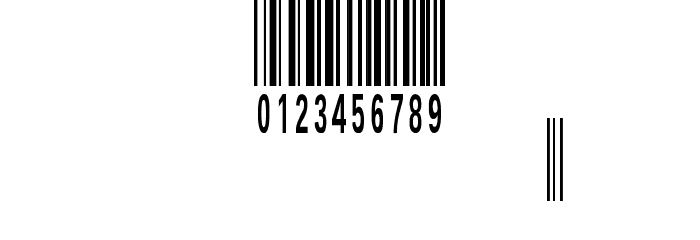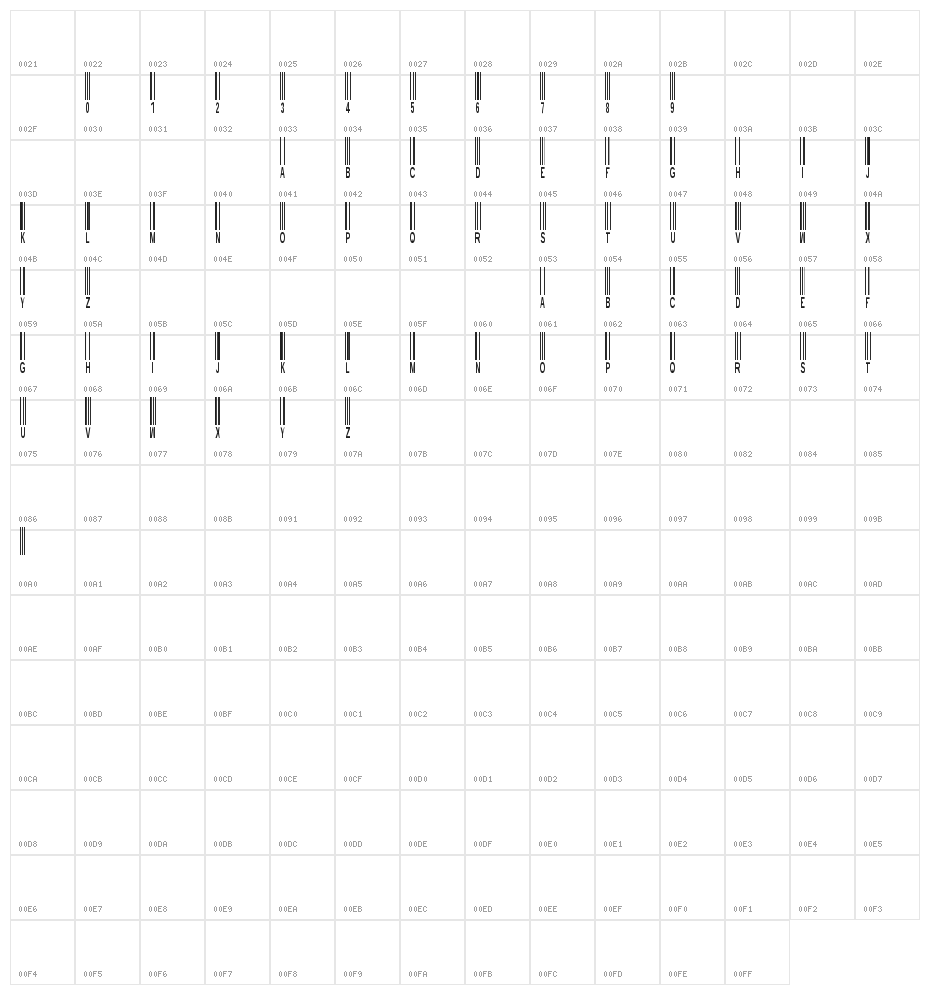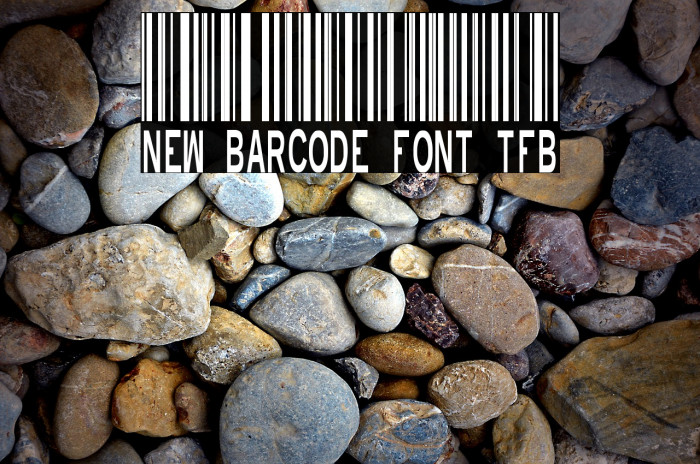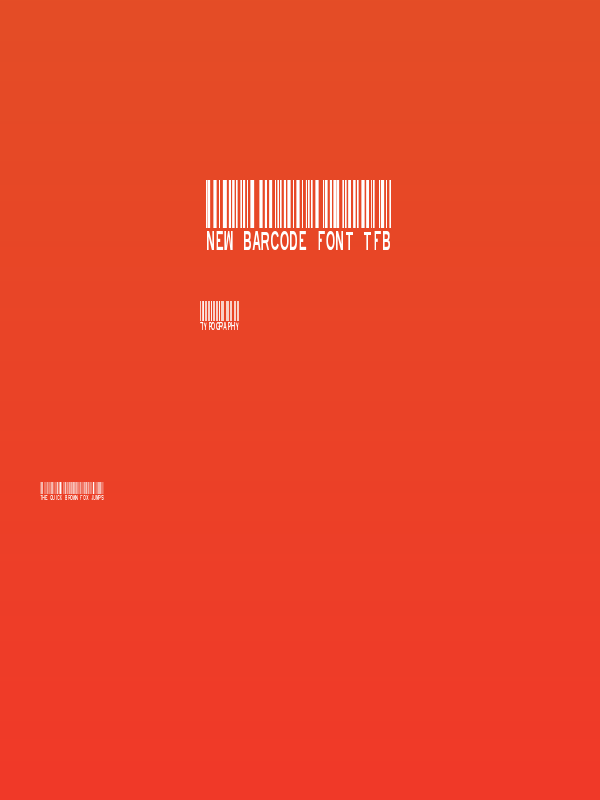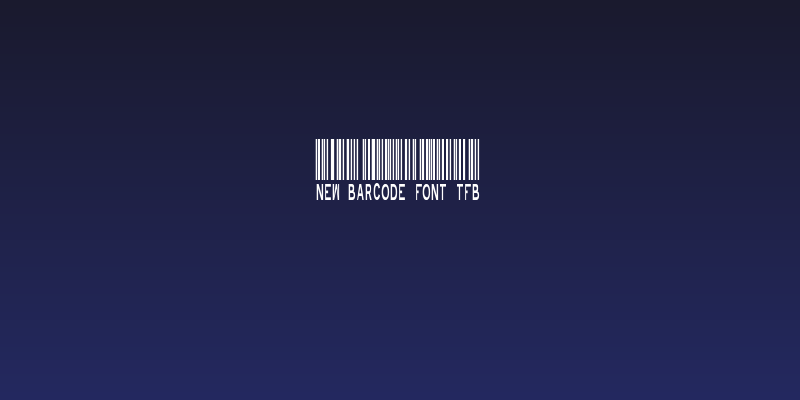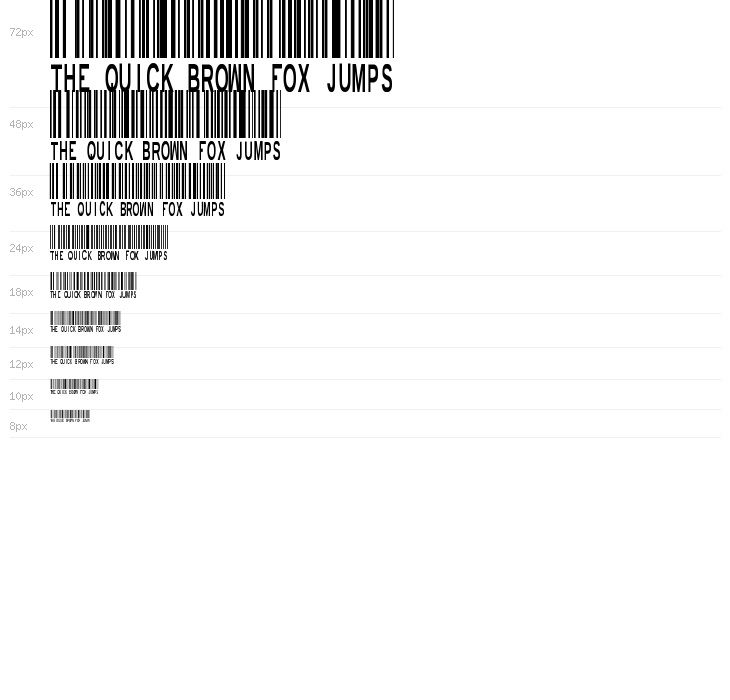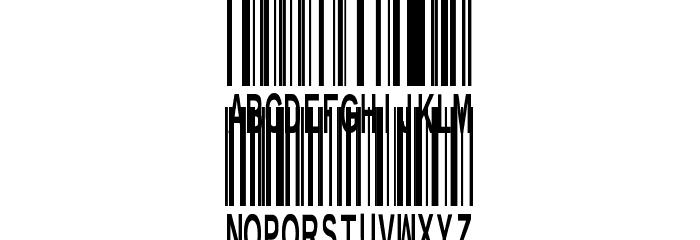
New Barcode Font tfb Font
New Barcode Font tfb Description
This font is designed to mimic the appearance of a barcode, with each character represented by a series of vertical lines of varying thicknesses. The design is highly structured and geometric, emphasizing a modern, industrial aesthetic. The characters are evenly spaced, maintaining a consistent rhythm across the text. This font is particularly effective for creating a futuristic or technological feel in design projects. Its unique style makes it stand out, making it suitable for branding or artistic purposes where a distinctive look is desired.
Use CaseLogos, Artistic displays, Tech-themed projects
Proposed ProjectsIdeal for branding, packaging design, tech-themed projects, and artistic displays.